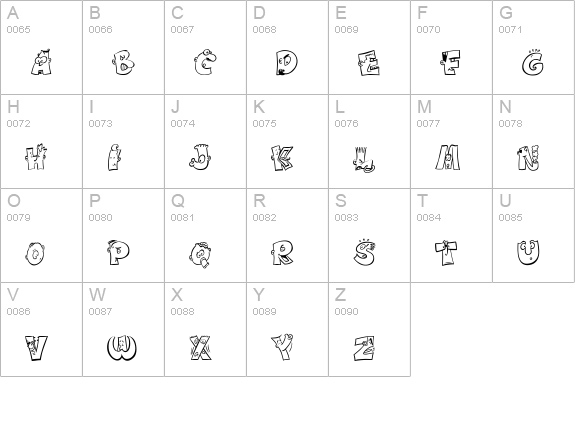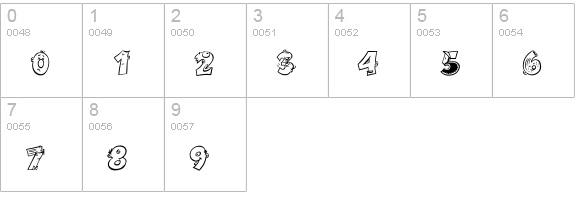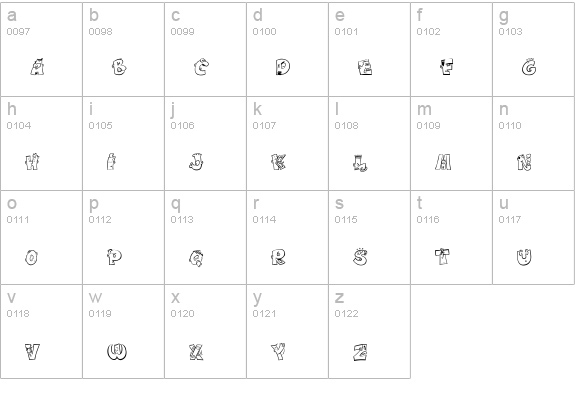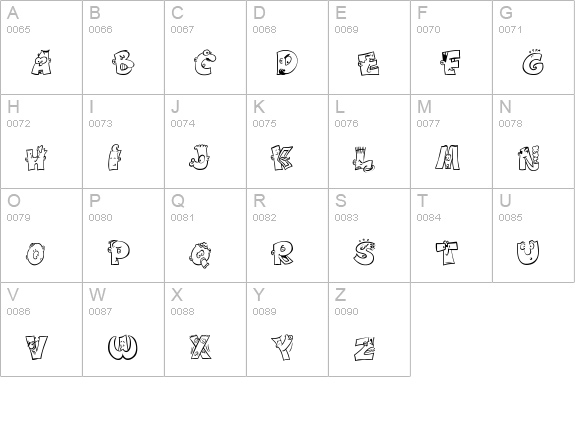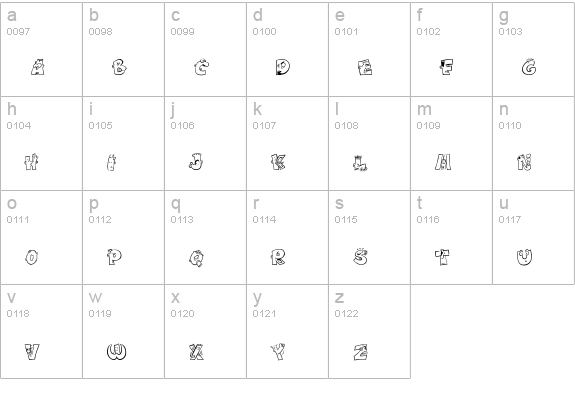
caricature Font Details
Introducing the whimsical and playful Caricature Font! This charming font is perfect for adding a touch of fun and personality to your designs. With its exaggerated features and quirky style, Caricature Font is sure to make a statement. Best of all, it's completely free to download at FontsMarket.com. Let your creativity shine with this delightful and unique font that is sure to bring a smile to anyone's face. Add a touch of humor and creativity to your projects with Caricature Font today!